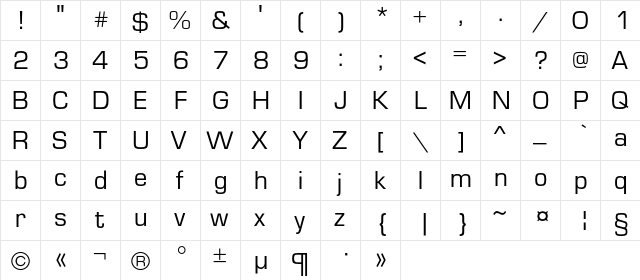
EuropeC Regular
Design Context for EuropeC Typeface
EuropeC takes a measured approach to typography — its balanced proportions and neutral character make it a reliable workhorse for both digital and print work.